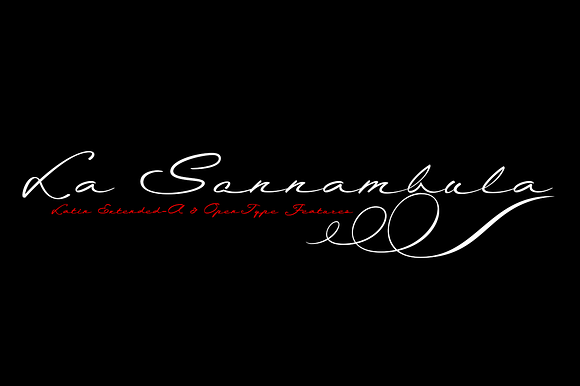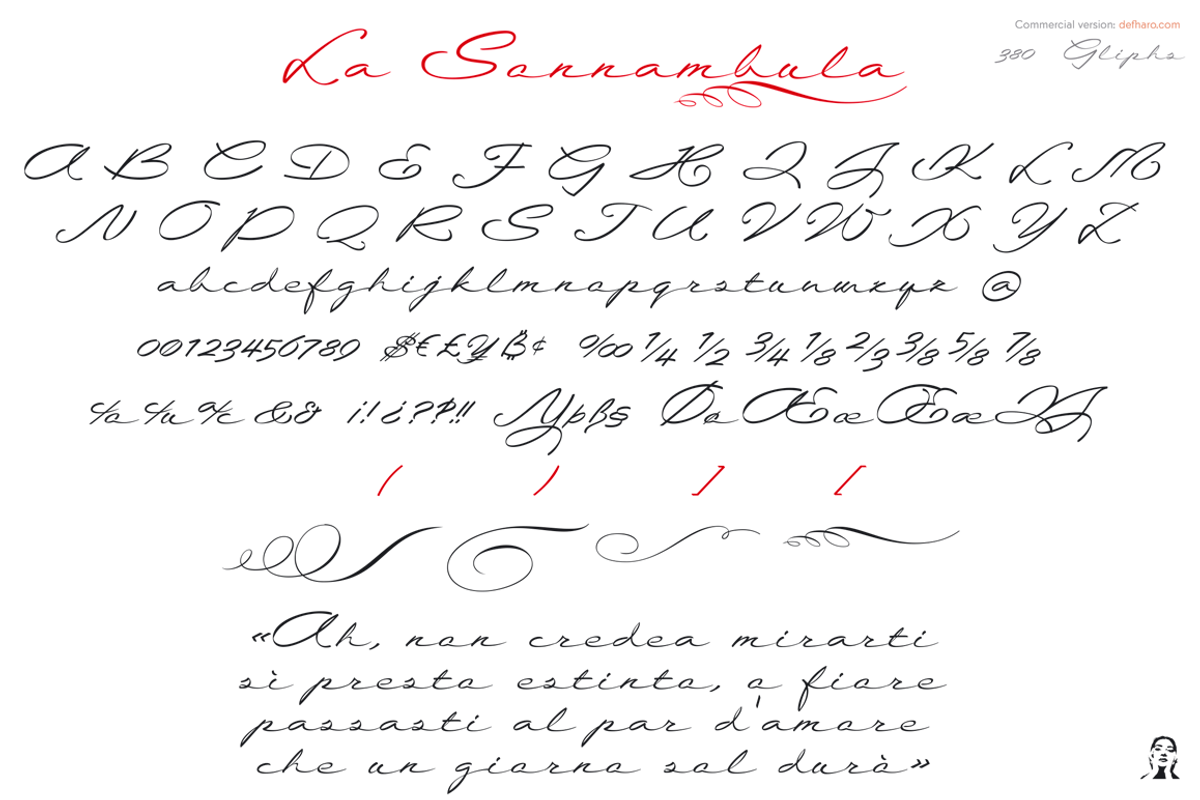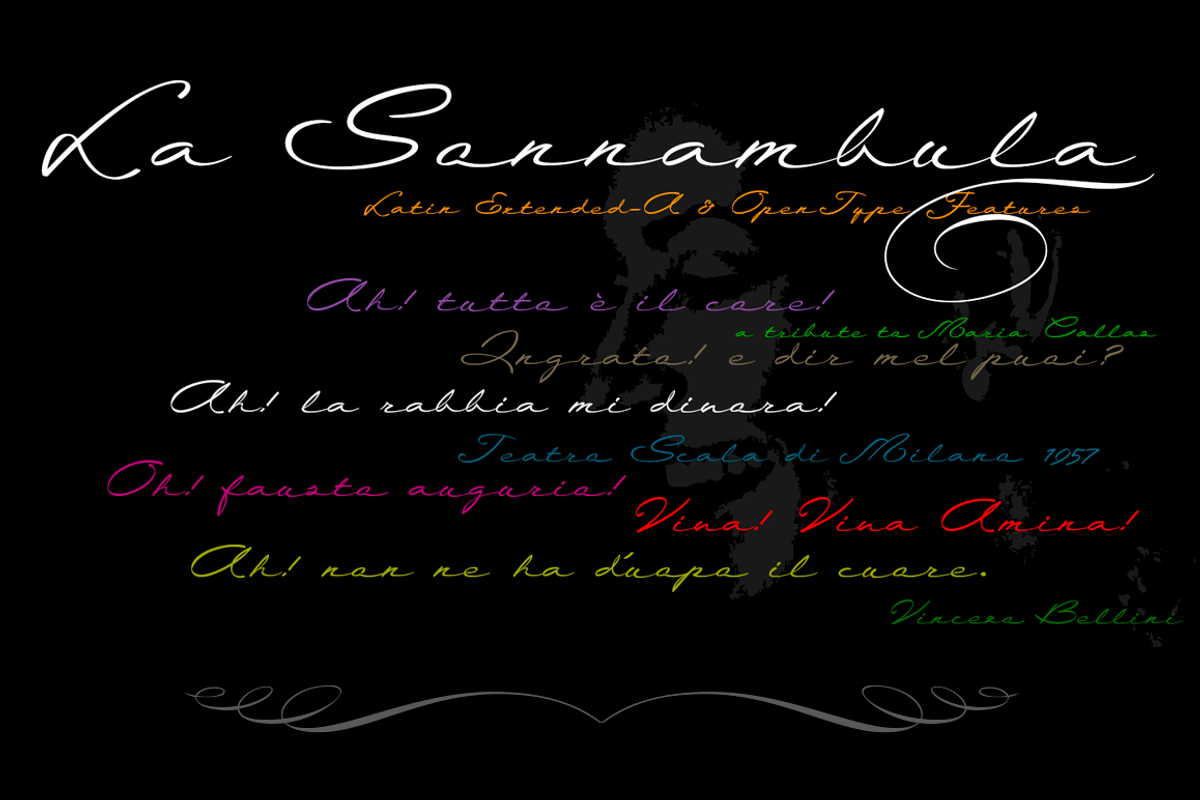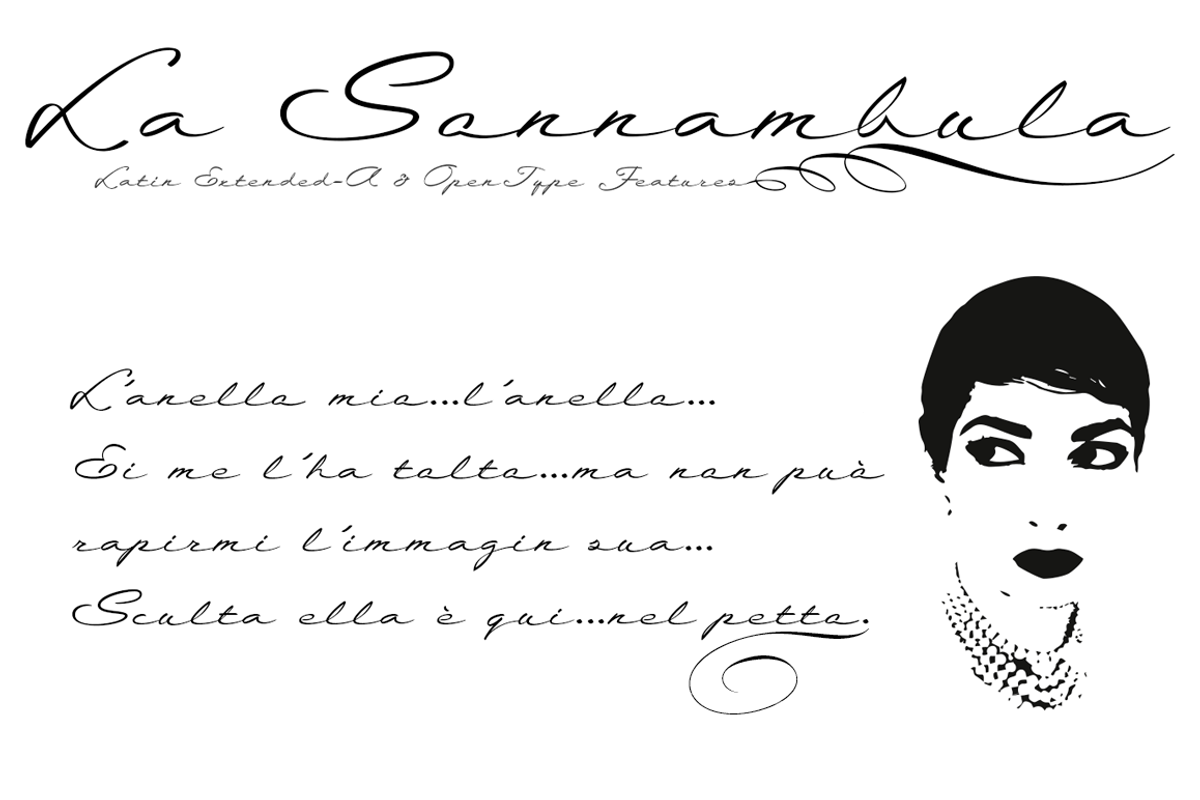
La Sonnambula typeface
The Sonnambula is a handwritten and expanded font, designed to write very elegant titles or calligraphic texts. The name of this typography is dedicated to the opera La Sonnambula by Vincenzo Bellini, performed by Maria Callas in Milan in 1957.
OpenType Functions: Discretionary Ligatures, Kerning, All Alternates, Additional languages, Standard Ligatures, Slashed Zero, Capital Spacing, Ornaments, Ordinals, Mathematical Greek, Fractions, Localized Forms.
Bitcoin symbol: b# (ligatures)